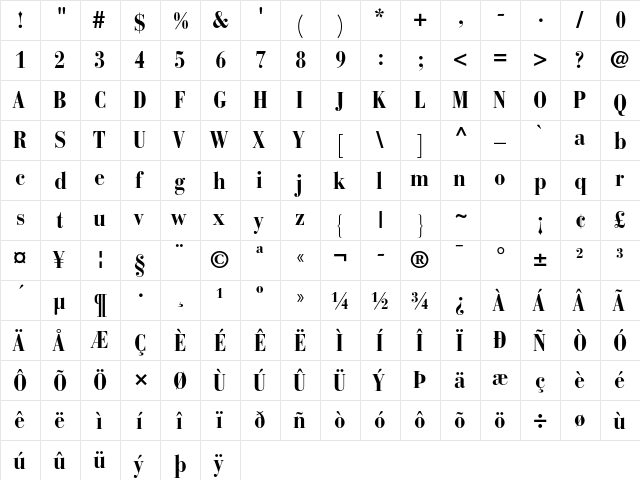
Bauer Bodoni Std 2 Bold Condensed
| Designer | Heinrich Jost, Louis Hڬl |
Design Context for Bauer Bodoni Std 2 Typeface
Bauer Bodoni Std 2 offers clean, dependable letterforms without strong stylistic allegiance, making it a practical choice for designers who need flexibility. Its bold stroke weight gives it real presence on the page. Its narrow stance lets it pack a punch even in space-constrained designs.